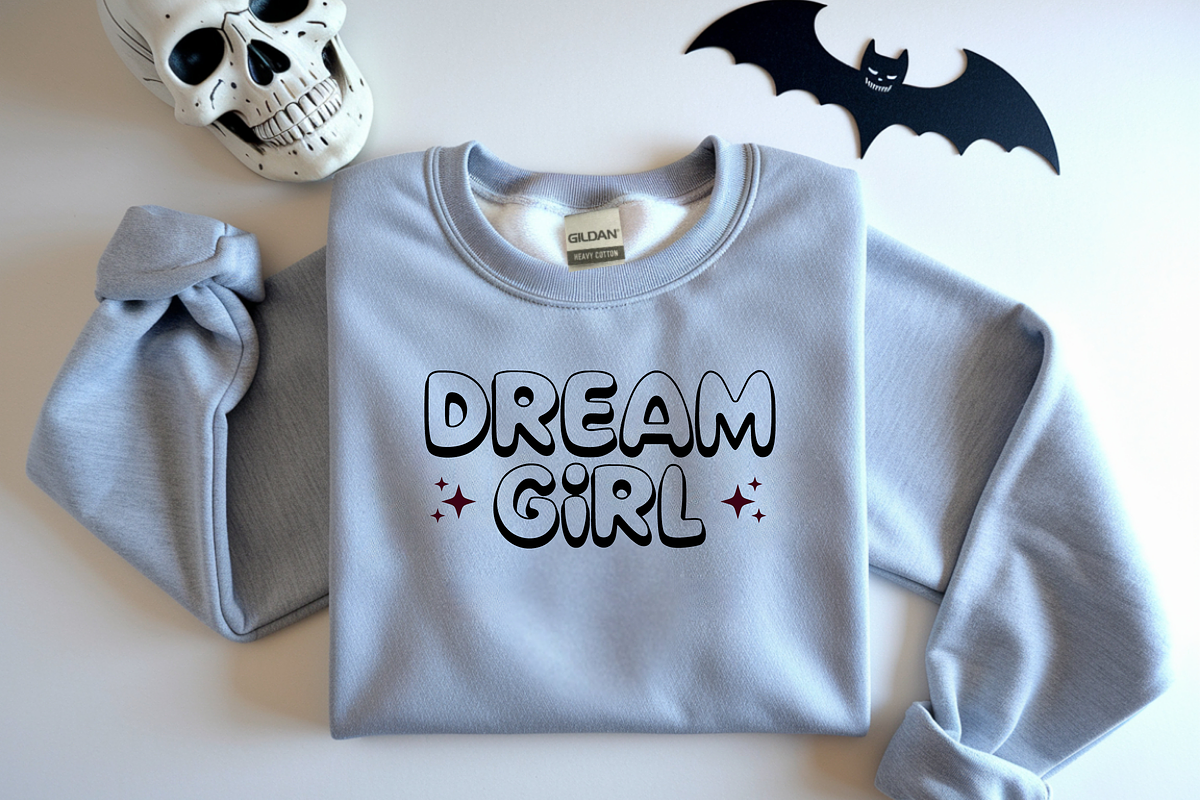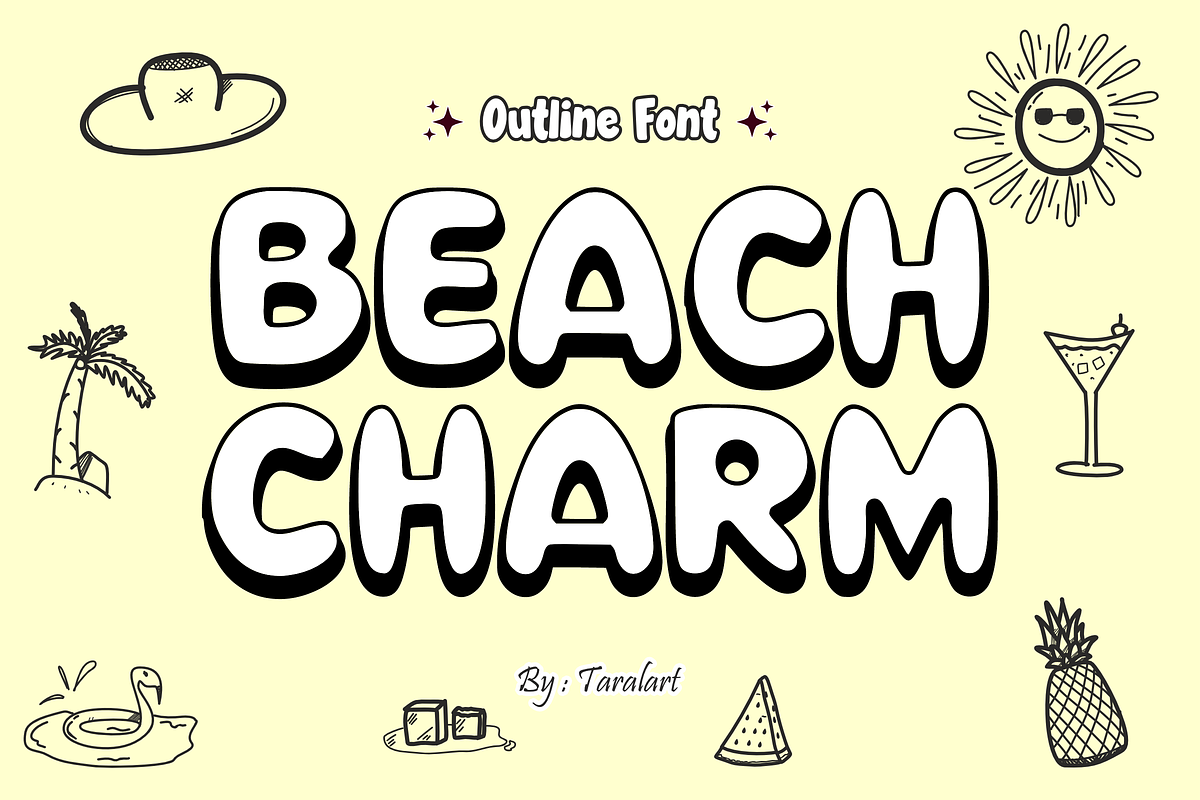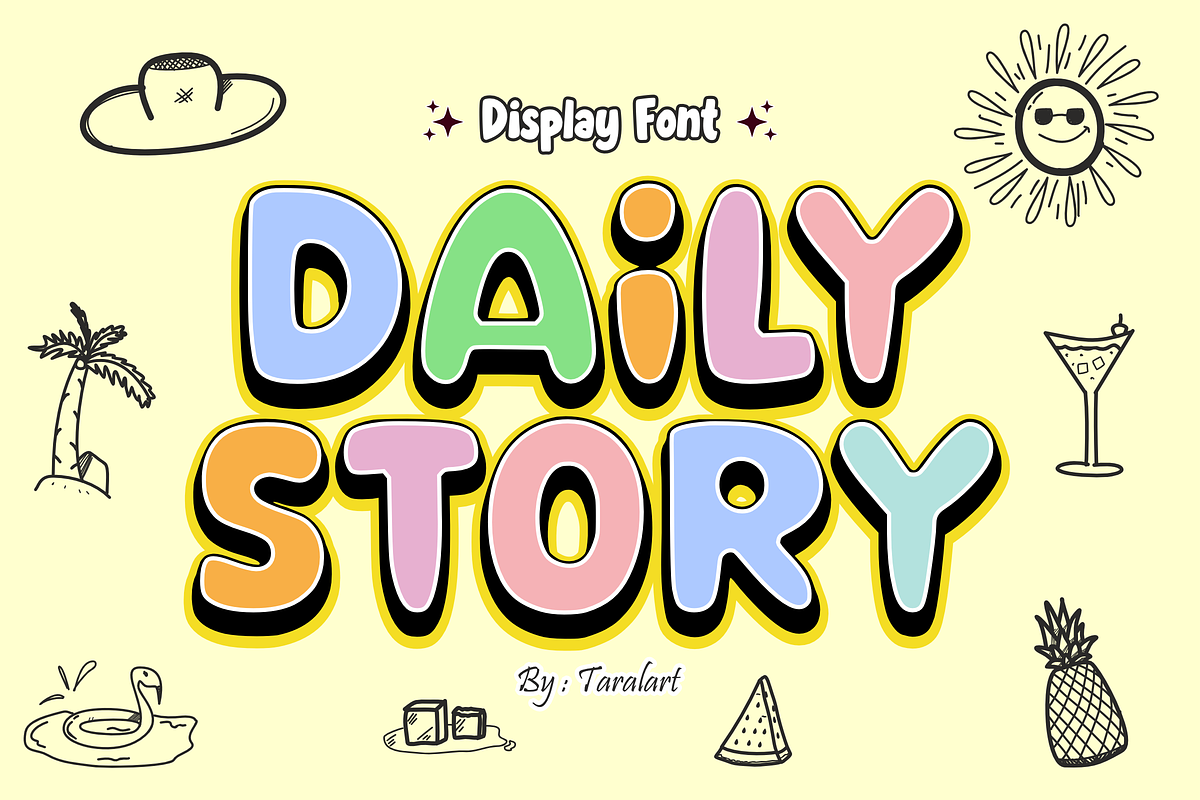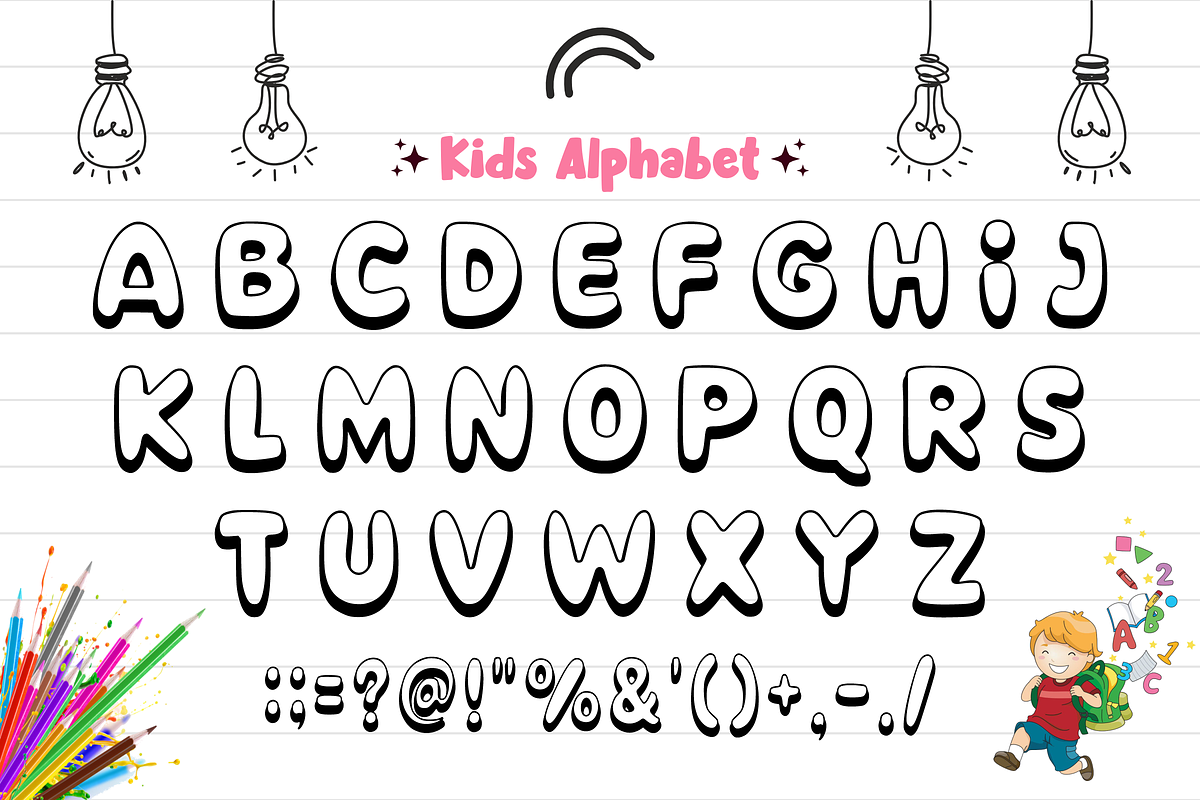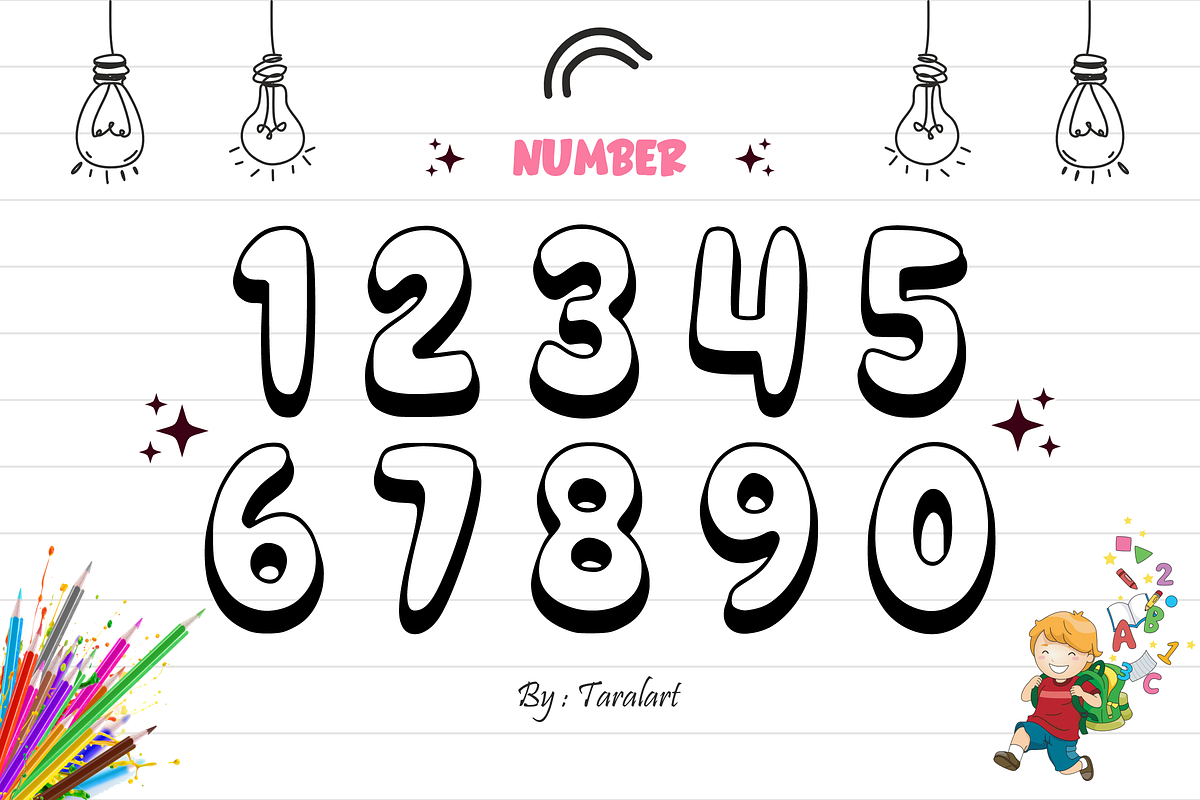
DAILY STORY - Playful Display Font
DAILY STORY - Playful Cartoon Display Font
Brighten up your everyday designs with Daily Story! This ultra-chunky, bubbly display font features soft, rounded edges and a bold comic drop shadow that makes every headline pop with sunshine and cheerful energy. It is the ultimate choice for bringing a fun, lighthearted storytelling vibe to your typography.
Perfect for summer branding, casual layouts, and trend-focused crafting, Daily Story masterfully balances a whimsical hand-drawn cartoon aesthetic with maximum legibility. It is highly versatile, deeply expressive, and fully optimized for smooth performance across premium digital cutting tools and professional print workflows.
All-Caps Character Set (Chunky, happy bubble uppercase letters)
Numbers & Basic Punctuation (Essential, simple symbols included)
Summer & Vacation Branding, Tropical Graphics, & Beach Party Themes ☀️
Cricut, Silhouette, & DIY Kid-Friendly Craft Sublimation Projects ✂️
Teacher Resources, Classroom Posters, & Fun School Printables 🎒
Custom Die-Cut Stickers, Daily Vlogs, & High-Impact YouTube Thumbnails 📹
Kids' Product Packaging, Toy Labels, & Playful Merchandise 🎈